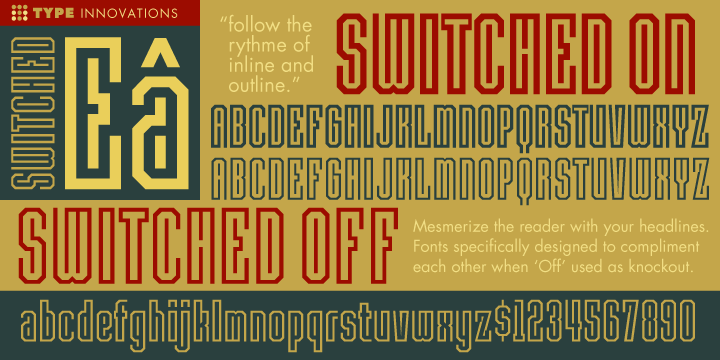
Switched On Collection
Switched Off
RegularSwitched On
Regular"Switched Off" & "Switched On"—These two experimental fonts are Art Deco in style and are based on a square grid pattern, exploring some interesting inline and outline effects.
Use these interesting fonts in industries such as sports, fitness, modern technology, fashion and gaming. Oh, and especially car racing applications. A fun font!